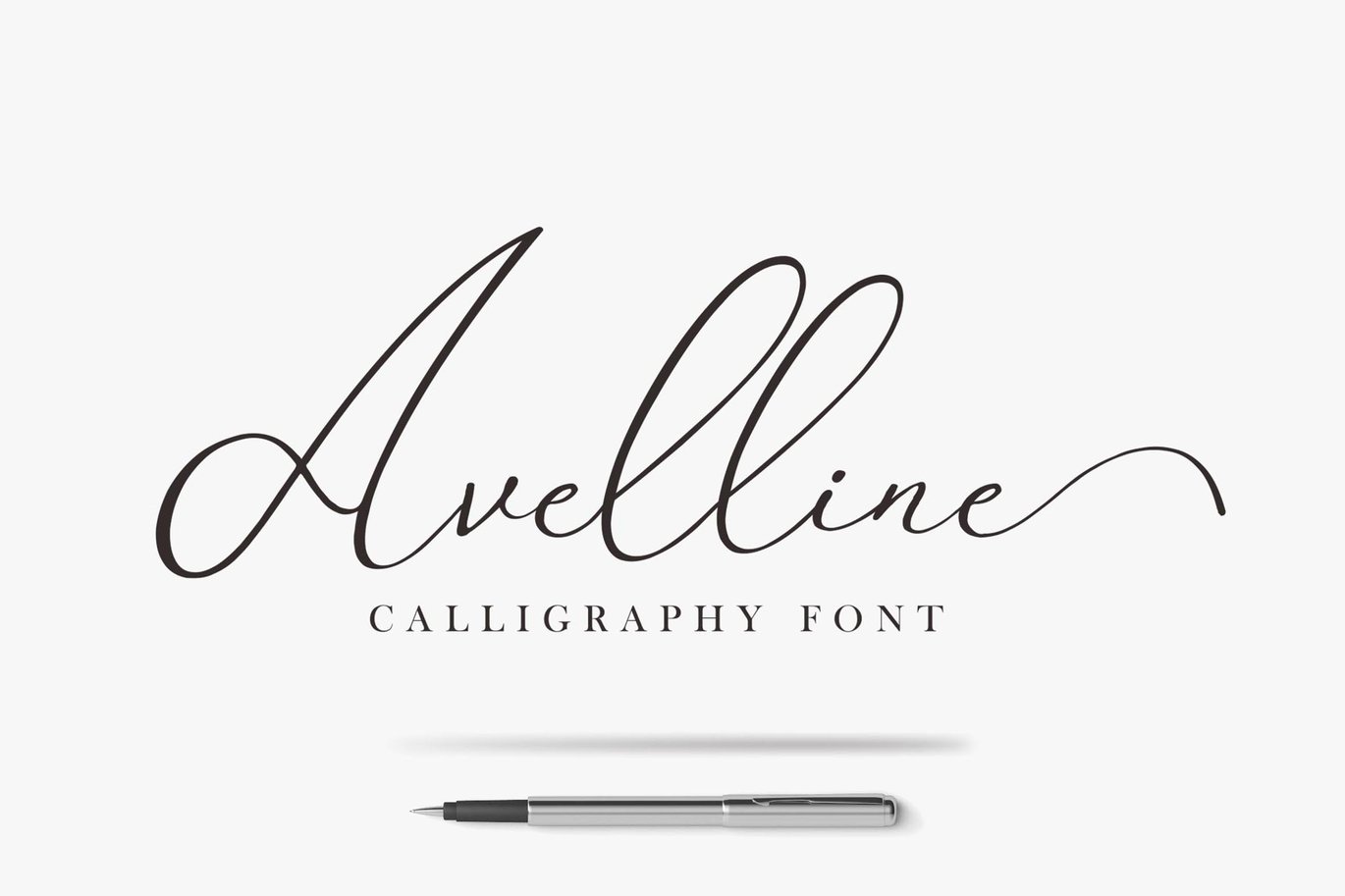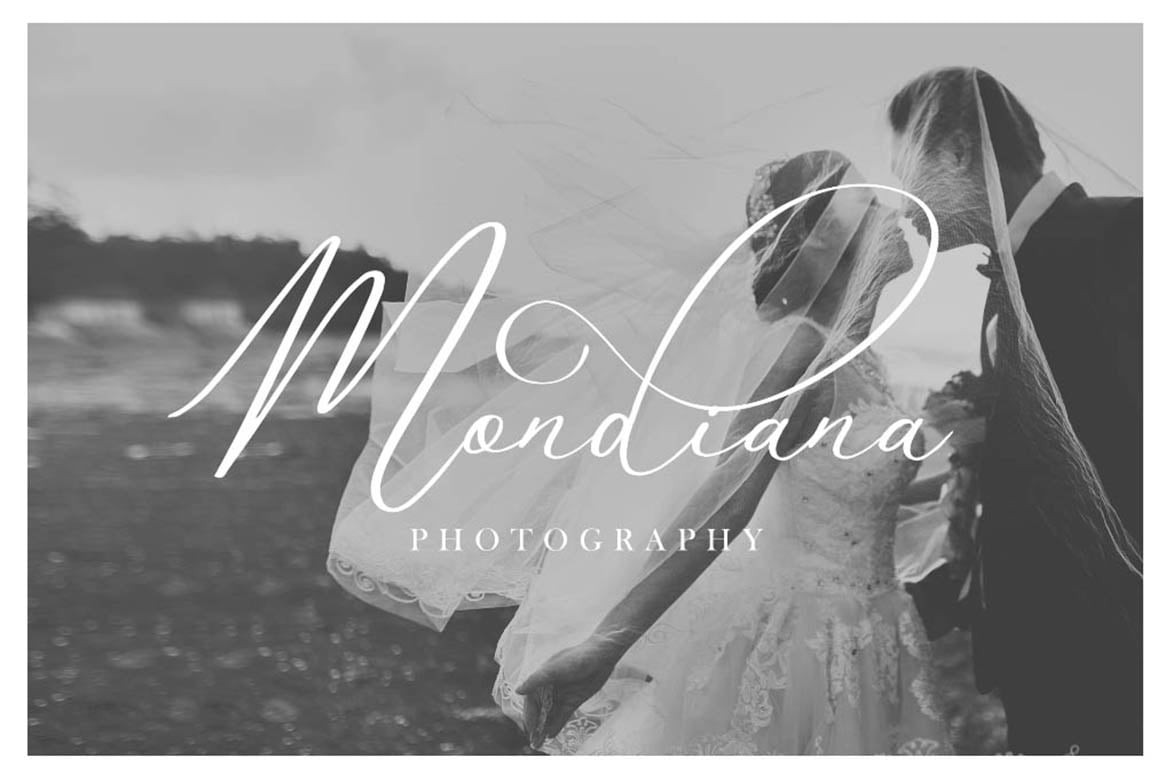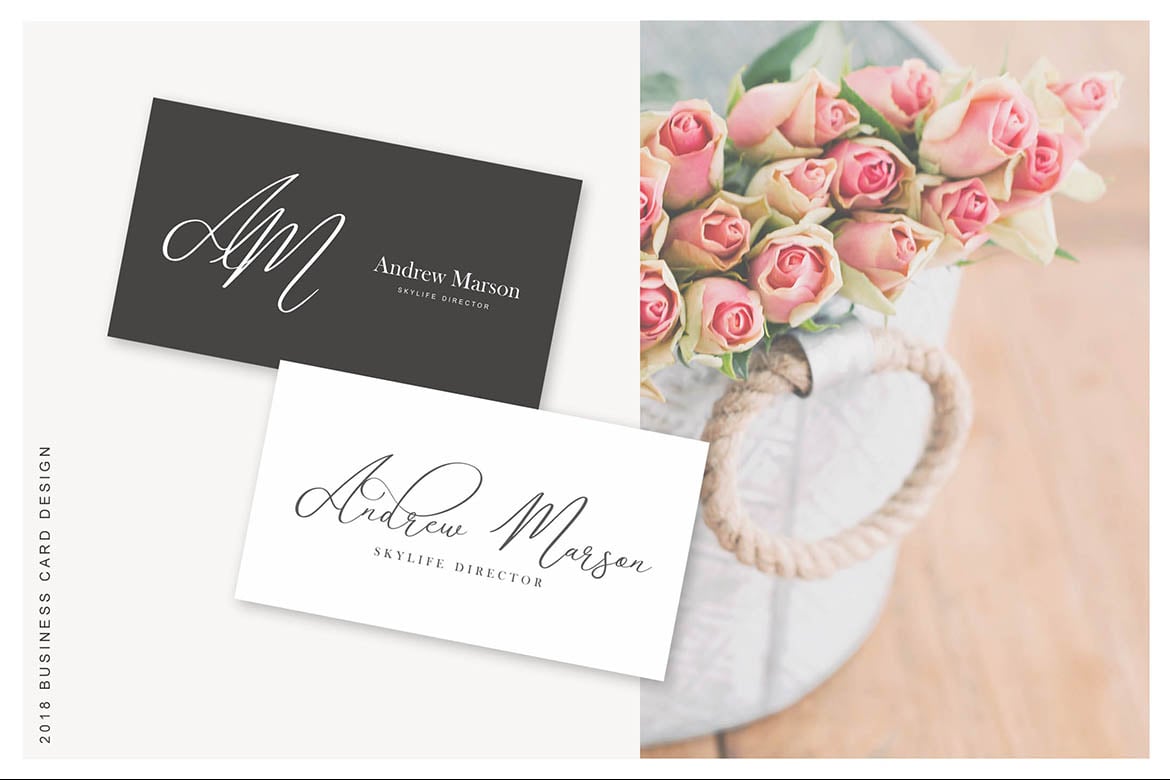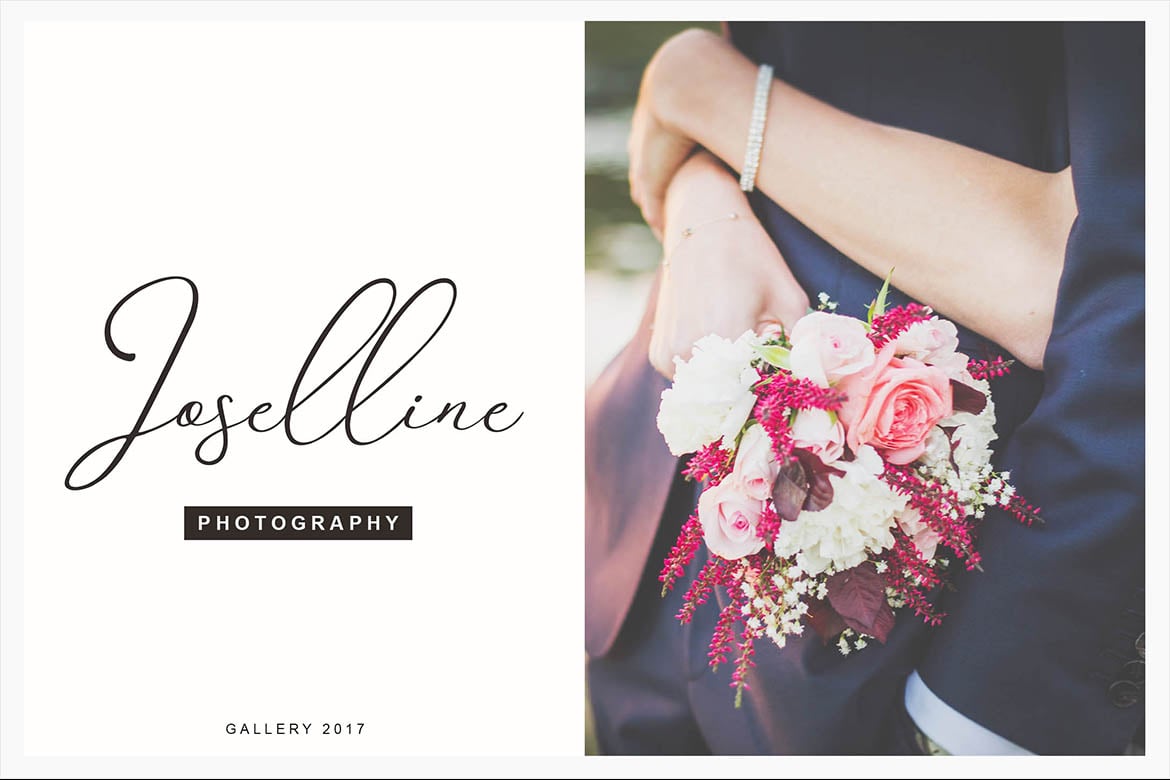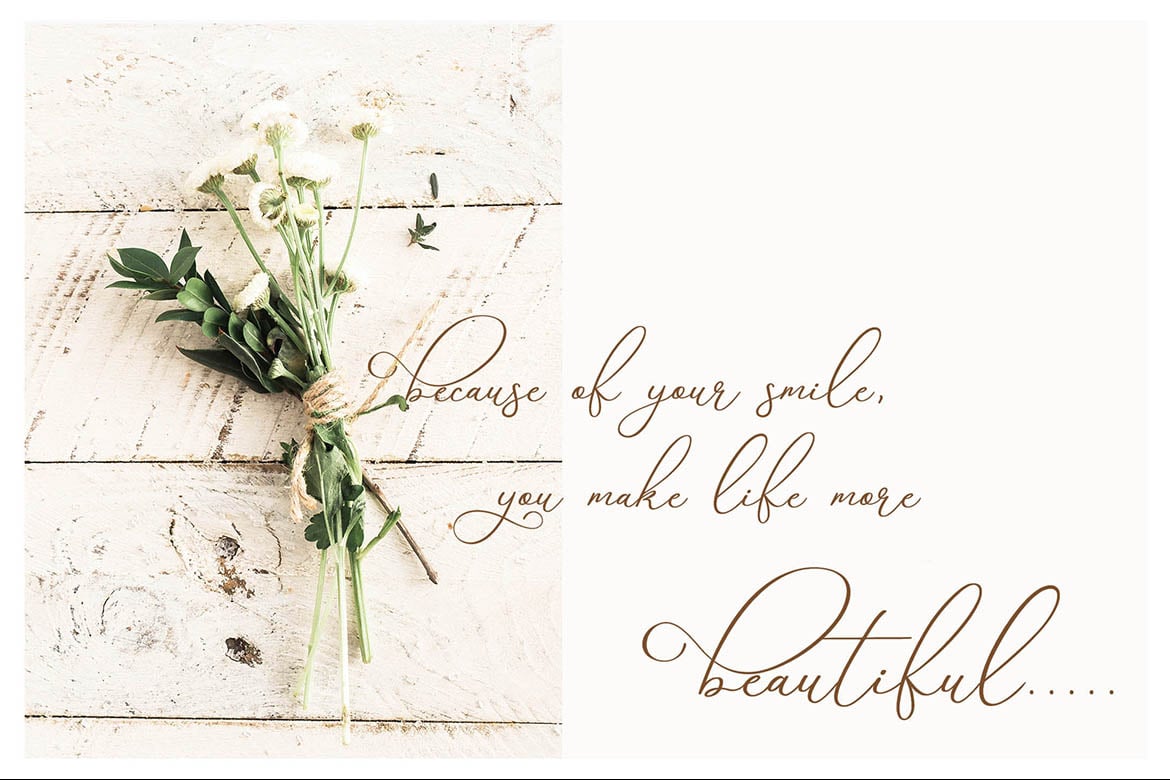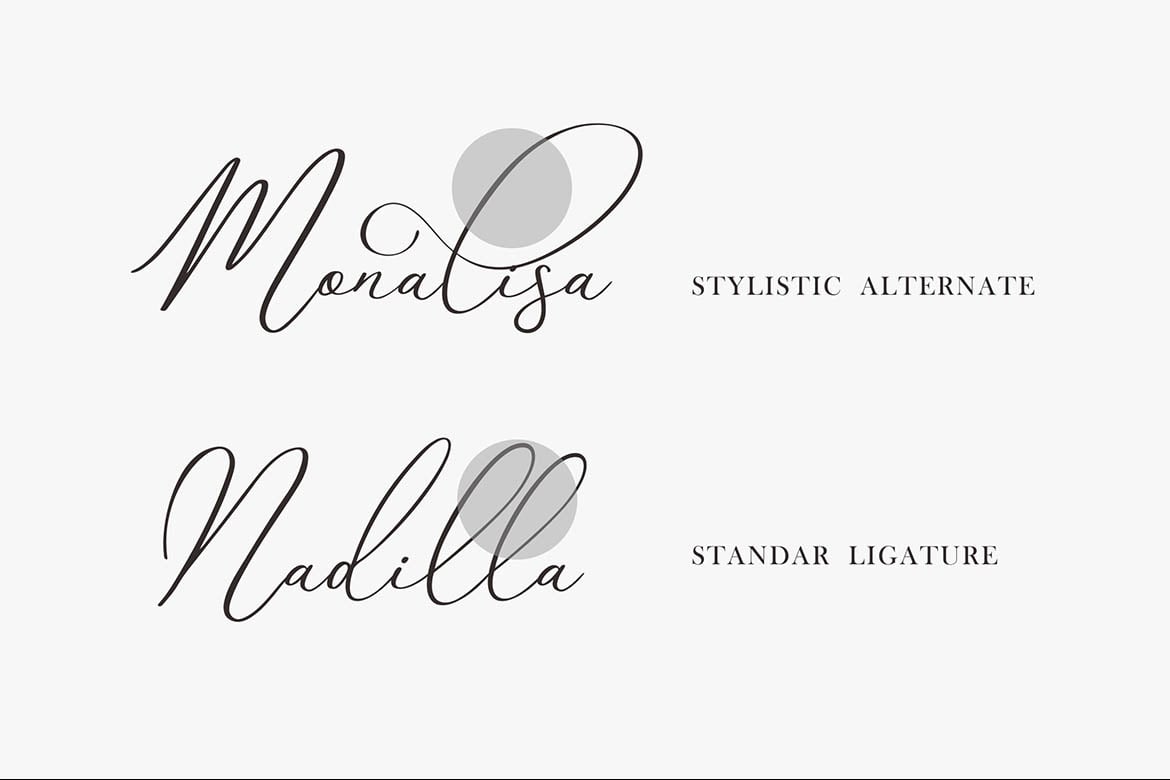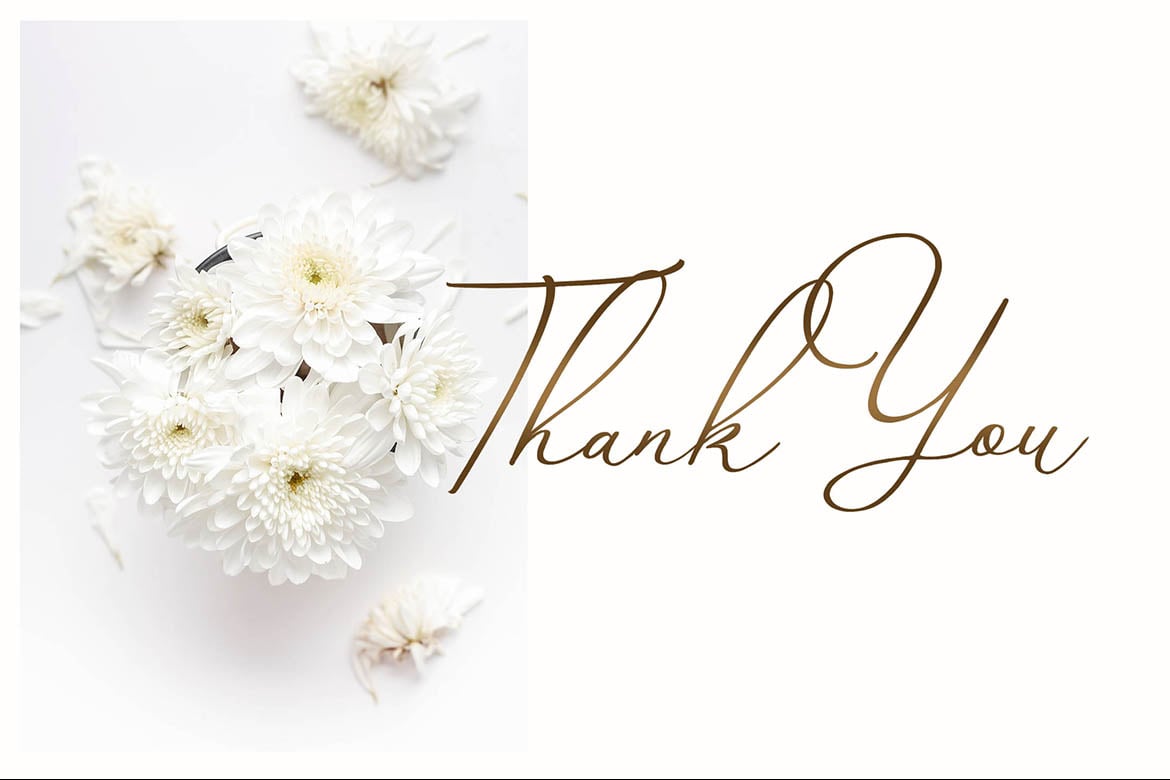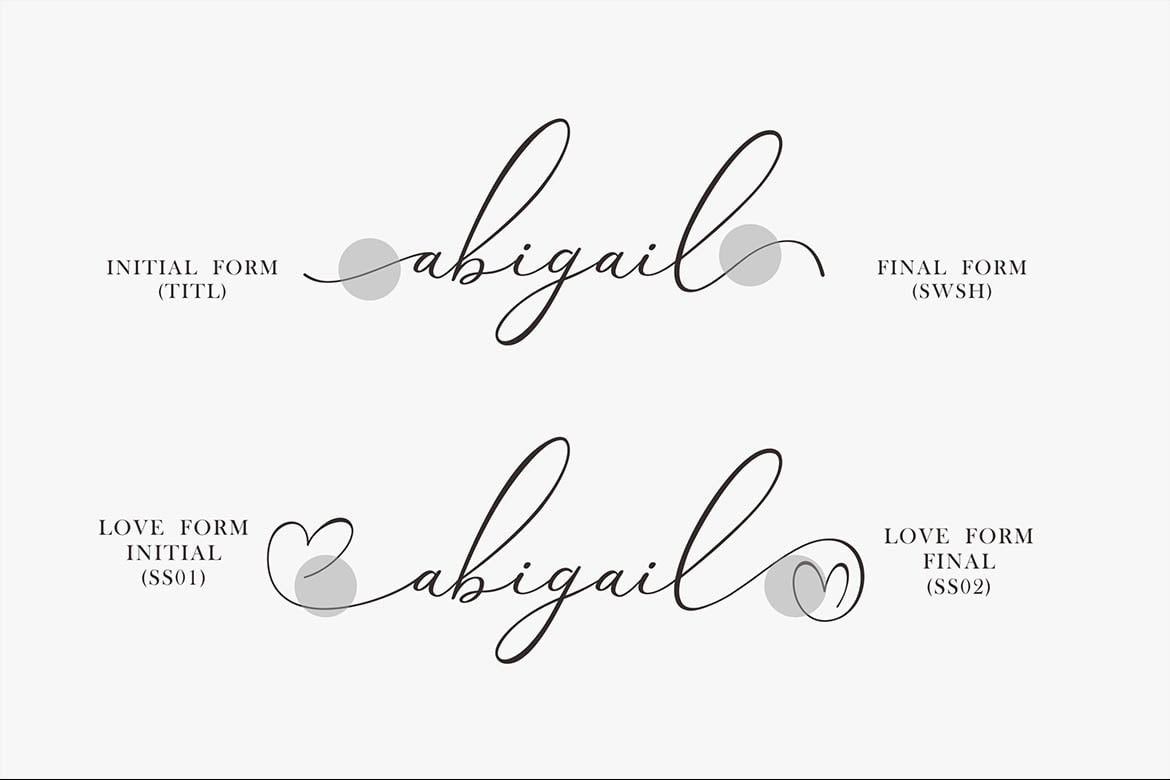
Avelline Luxury Font
Avelline is modern calligraphy font. This is awesome for your project, classy signature, photography signature, beautiful quotes, cosmetic branding, or any beautiful design project.
Avelline Features :
- Stylistic Alternate
- Standar Ligature
- Swash Varian
- Titling Lowercase
- Stylistic Set SS01, SS02